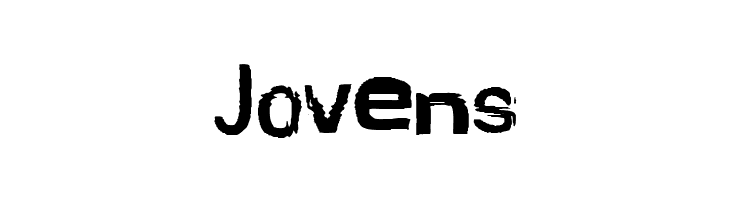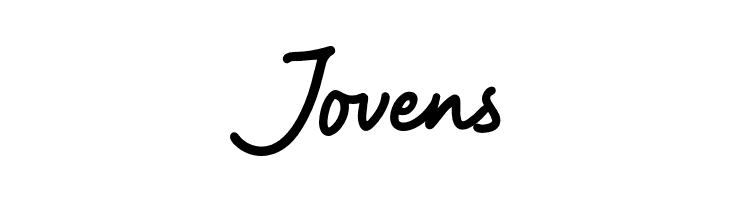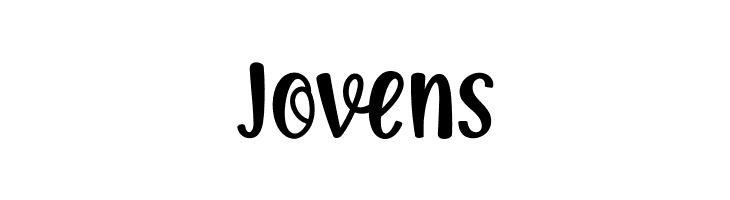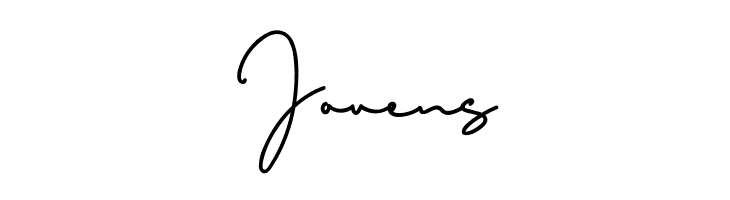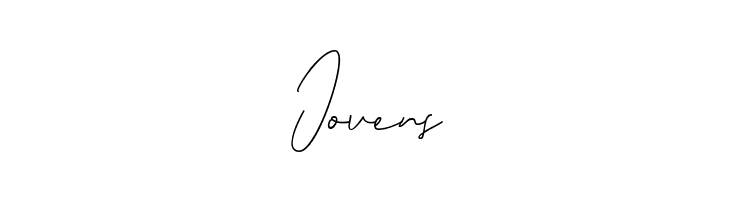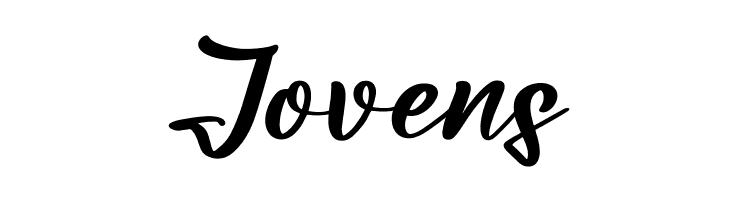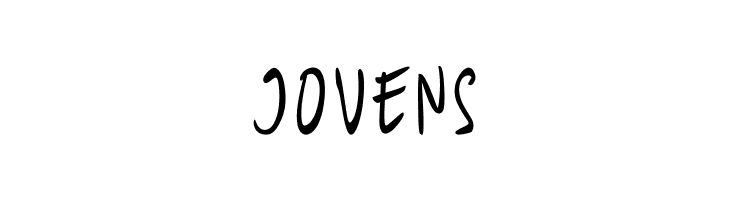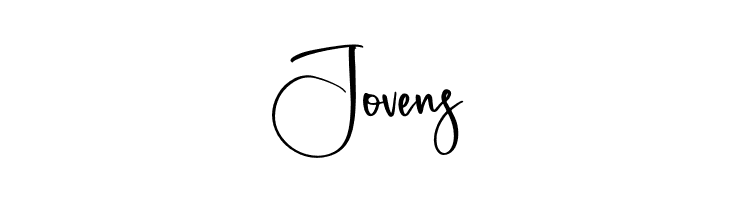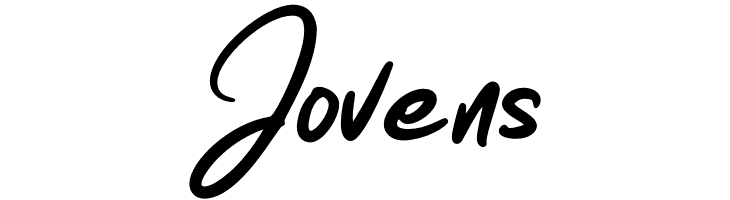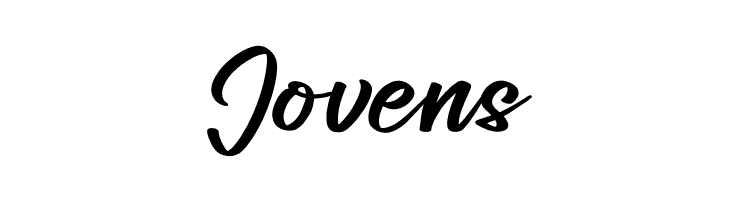
A playful and elegant handwritten font with fluid strokes and dynamic movement.
A lively, handwritten font with a playful and artistic flair.
A lively and expressive handwritten font with dynamic letterforms and artistic flair.
An elegant, flowing script font with a sophisticated, cursive style.
A bold, dynamic script font with fluid, connected letterforms.
A bold, flowing script font with elegant cursive letterforms.
A bold, expressive script font with flowing, cursive letterforms and high contrast.
A lively, flowing script font with elegant cursive letterforms and dynamic contrast.
A flowing, elegant script font with bold, dynamic curves and italic styling.
A bold, expressive handwritten font with dynamic strokes and a modern flair.
A lively, cursive font with a natural, handwritten feel and dynamic strokes.
A delicate and flowing script font with elegant curves and a handwritten feel.
A modern, handwritten font with fluid strokes and a brush-like texture.
A modern, elegant handwritten font with fluid, cursive strokes.
A playful, casual handwritten font with fluid strokes and a lively feel.
A bold, flowing script font with elegant, connected strokes.
A bold, cursive italic font with a flowing, handwritten style.
A lively handwritten font with fluid strokes and playful curves.
A casual, handwritten font with playful, flowing strokes.
A bold, distressed font with a hand-drawn, chaotic style.
An elegant, flowing script font with ornate uppercase and smooth lowercase letters.
A lively handwritten font with fluid, dynamic strokes and elegant connections.
A playful, bold, and rounded font with a hand-drawn aesthetic.
A flowing, cursive script font with an elegant, handwritten style.
A fluid, elegant handwritten font with thin, delicate strokes.
A lively and dynamic script font with fluid, connected letterforms.
A fluid and elegant script font with smooth, flowing lines and cursive letterforms.
A fluid, elegant handwritten font with thin, delicate strokes.
A fluid and elegant script font with a modern calligraphic style.
A bold, expressive script font with a lively handwritten style.
A bold, handwritten script font with a lively and dynamic style.
A flowing, cursive font with elegant, connected letters and a dynamic style.
A bold, dynamic brush script with expressive strokes and a hand-painted look.
A bold, energetic brush script font with dynamic strokes.
A bold, expressive script font with fluid strokes and modern style.